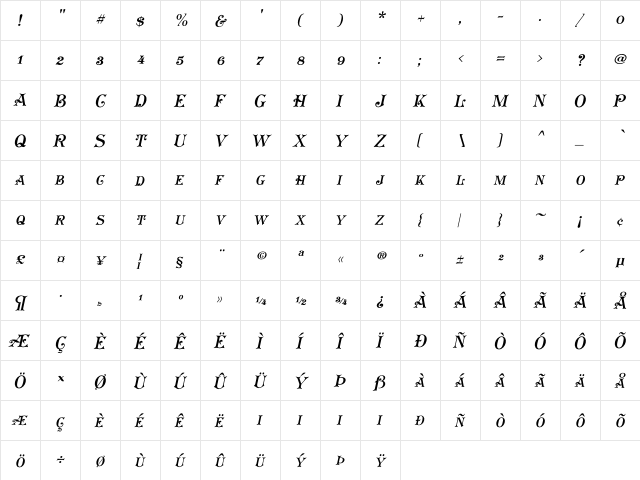
Koster Plain Caps Oblique Regular
Design Context for Koster Plain Caps Oblique Typeface
Koster Plain Caps Oblique offers clean, dependable letterforms without strong stylistic allegiance, making it a practical choice for designers who need flexibility. Its italic angle brings a sense of urgency and motion to the letterforms.
Pro Tip: Try Koster Plain Caps Oblique for annotation and caption copy alongside an upright companion — the contrast in angle creates a dynamic but ordered typographic system.